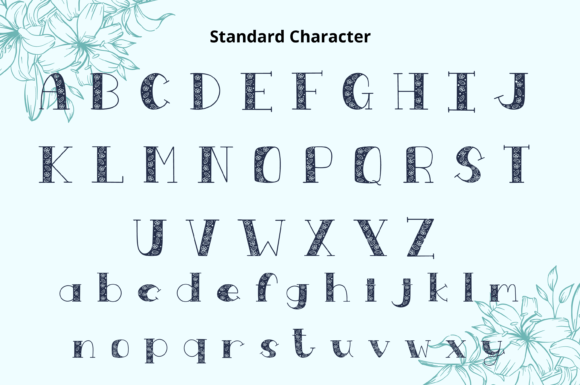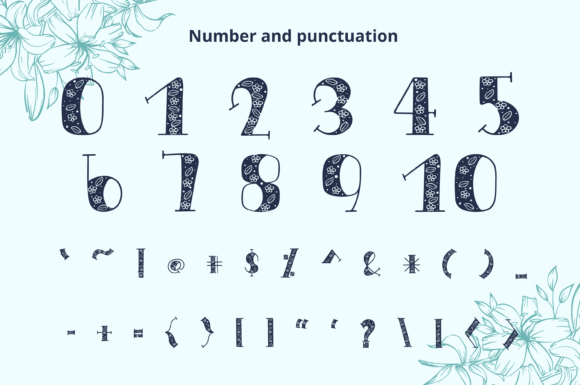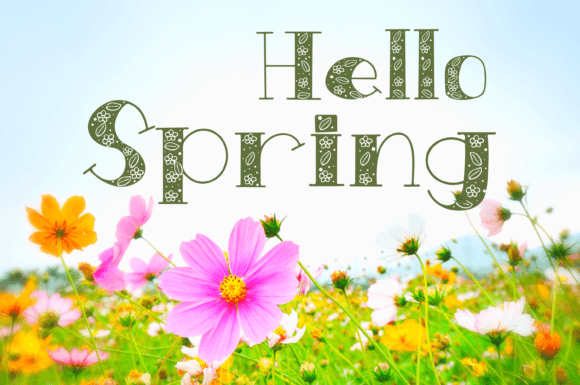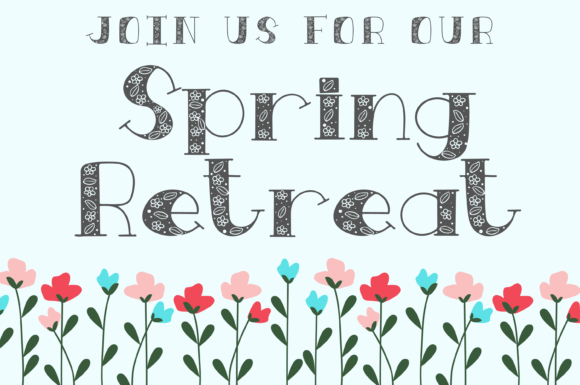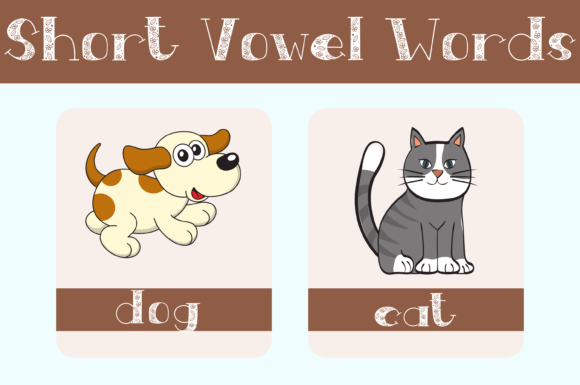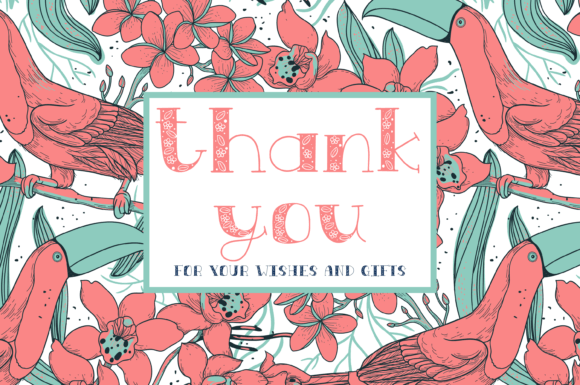
Introduction to Organic Flora Font
Have you ever found yourself rummaging through your design files, searching for that perfect font to elevate your creative project? You know, that moment when you’re on the verge of a breakthrough, but something’s just missing? For designers like you, the hunt for the ideal design resource is a never-ending quest. And, trust us, it’s about to get a whole lot easier with the introduction of the Organic Flora Font.
This whimsical and adorable decorative font is the perfect addition to any creative endeavor, and its versatility knows no bounds. With its delicate lines and intricate details, the Organic Flora Font is sure to make your project stand out from the crowd. Whether you’re working on a digital design with a transparent background or need a high-quality font for your next print project, this font is the perfect choice.
Key Features of Organic Flora Font
- Unique, hand-drawn design with intricate details, making it a valuable resource for creative projects.
- Comes with a transparent background, allowing for easy customization and flexibility in design.
- Includes multiple font styles and weights, including regular, bold, italic, and bold-italic, providing versatility for various design applications.
- Designed with a high resolution (up to 300 DPI), ensuring that the font remains crisp and clear when scaled up or down.
- Perfect for use in logos, branding, packaging, and other design elements where a natural, organic feel is desired.
Honest Review: Organic Flora Font
As a designer, I’m always on the lookout for high-quality design resources that can elevate my creative projects. The Organic Flora Font is one such resource that caught my attention, and I’m excited to share my honest review with you.
- Unique and elegant design: The Organic Flora Font has a beautiful, hand-drawn feel that adds a touch of sophistication to any design.
- High-quality vector files: The font is available in high-quality vector format, making it perfect for large-scale designs and printing.
- Transparent background required: Unfortunately, the font requires a transparent background to display correctly, which can be a limitation for some designers.
- No bold or italic variations: While the font is beautiful, it’s lacking in bold and italic variations, which can be a drawback for designers who need to emphasize certain text.
Overall, the Organic Flora Font is a beautiful and high-quality design resource that can add a touch of elegance to any creative project. While it has some limitations, its unique design and high-quality vector files make it a great choice for designers who need a reliable and stylish font.
The Organic Flora Font is a beautiful, high-quality design resource that can elevate any creative project. With its unique, hand-drawn style and transparent background, it’s perfect for designers looking to add a touch of elegance and sophistication to their work.
Organic Flora Font is a great choice for designers using Canva, as it’s easy to upload and use in your designs.
To use the Organic Flora Font in Adobe Photoshop or Illustrator, simply install the font and select it from the font menu.
You can also use the Organic Flora Font in PowerPoint and Word, making it a great choice for presentations and documents.
Tips for Getting the Most Out of Organic Flora Font
To get the most out of the Organic Flora Font, be sure to experiment with different font sizes, colors, and combinations to create unique and eye-catching designs.
The Organic Flora Font is perfect for a variety of design projects, including:
Wedding Invitations
Use the Organic Flora Font to create beautiful, elegant wedding invitations that set the tone for your special day.
Branding Materials
The Organic Flora Font is a great choice for branding materials, such as business cards and letterheads.